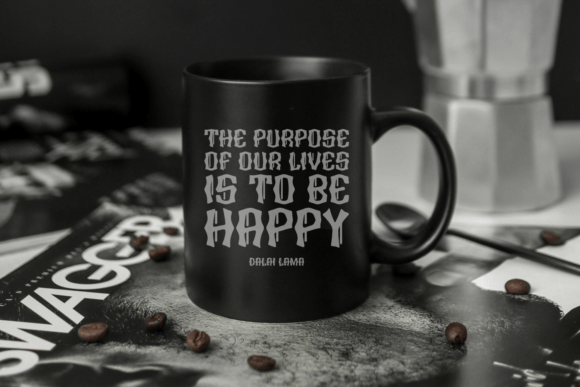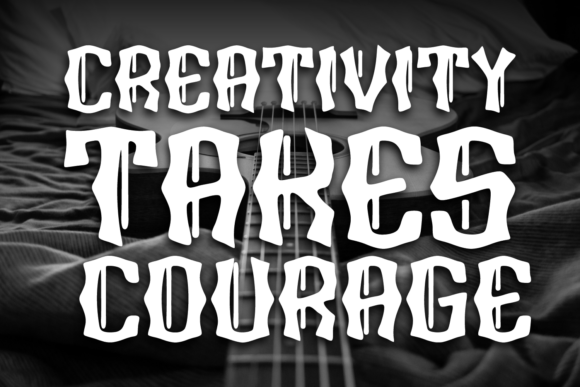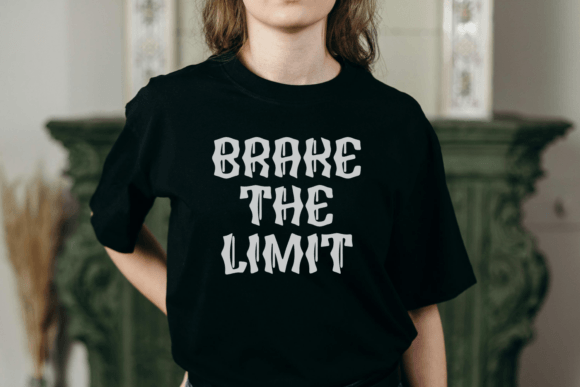
Introduction to Mabura Font
Remember that moment when you stumbled upon the perfect font for your creative project? The one that makes your design pop and elevates your message? For designers, finding that elusive font can be a game-changer. And if you’re looking for a high-quality design resource that’s both timeless and modern, look no further than the Mabura Font.
With its striking blackletter style, Mabura Font effortlessly blends gothic elegance with sharp, contemporary flair. Its intricate strokes evoke the majesty of medieval manuscripts, while its modern versatility makes it perfect for logos, tattoos, and dramatic headlines. Whether you’re working on a creative project or simply looking for a unique design element, Mabura Font is sure to command attention and leave a lasting impression.
Key Features of Mabura Font
- High-quality, vector-based font design suitable for creative projects.
- Unique, intricate design with a transparent background, allowing for easy customization and layering.
- Perfect for use in creative projects, such as graphic design, digital art, and typography-based designs.
Honest Review: Mabura Font
As a designer, I’m always on the lookout for high-quality design resources that can elevate my creative projects. Recently, I stumbled upon the Mabura Font, and I’m excited to share my honest review with you.
- The Mabura Font has a unique, modern design that’s perfect for creative projects that require a touch of sophistication.
- The transparent background option allows for seamless integration with any design element, giving me more flexibility in my creative process.
- The Mabura Font is a sans-serif font, which might not be suitable for projects that require a more traditional or serif font.
- The font’s uniqueness can also be a double-edged sword – while it’s great for creative projects, it might not be the best choice for more formal or professional applications.
Overall, the Mabura Font is a solid addition to any designer’s toolkit. While it may have some limitations, its unique design and free download make it a valuable resource for creative projects. I’d definitely recommend giving it a try and seeing how it can elevate your next design project.
Tips for Getting the Most Out of Mabura Font
Use the Mabura Font in combination with other design elements to create a cohesive visual identity. Experiment with different font sizes, styles, and colors to find the perfect balance for your creative project.
The Mabura Font is ideal for a wide range of creative projects, including logos, business cards, brochures, and presentations. Its unique design and high-quality features make it a valuable asset for designers and non-designers alike.